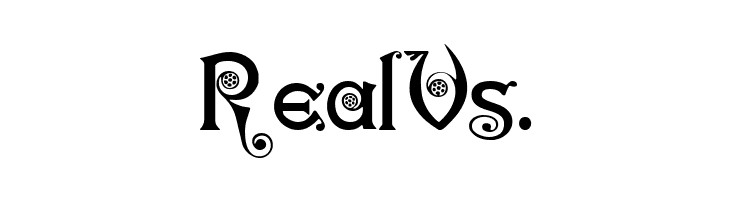
A bold, decorative font with angular, ornate designs and intricate flourishes.
An angular, decorative font with Gothic influences and intricate detailing.